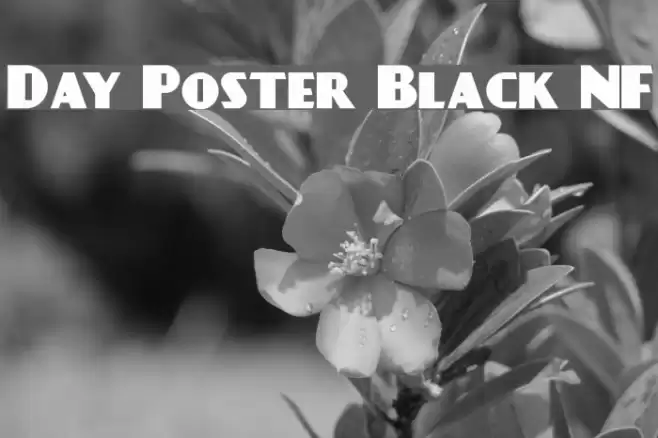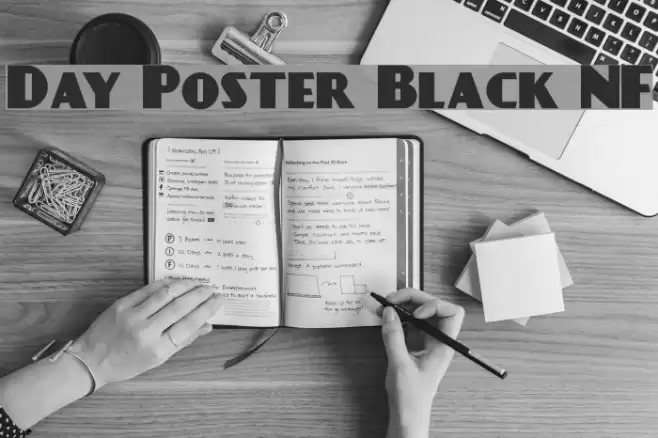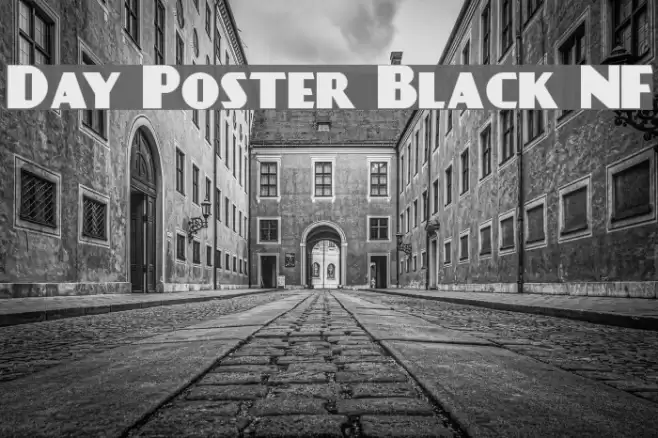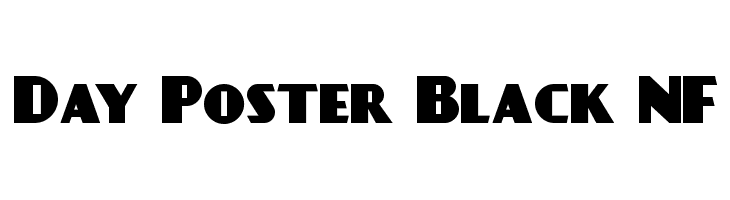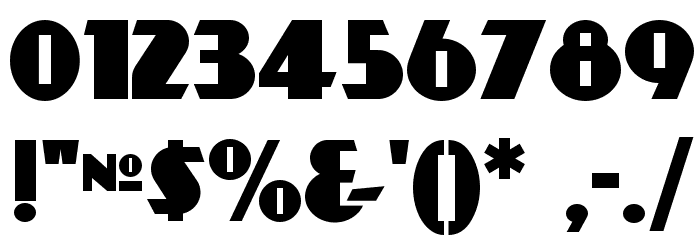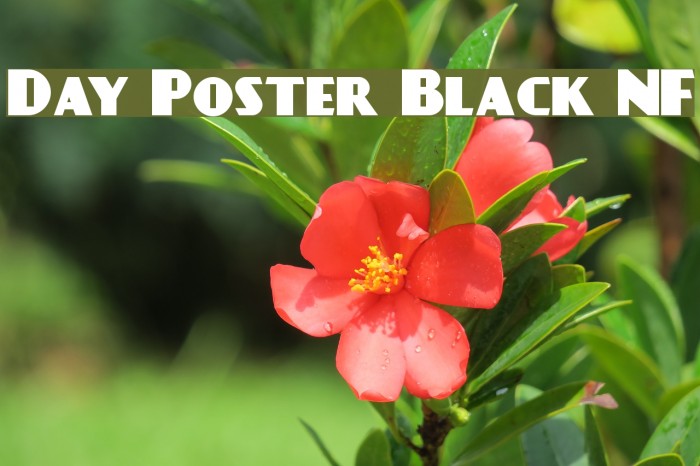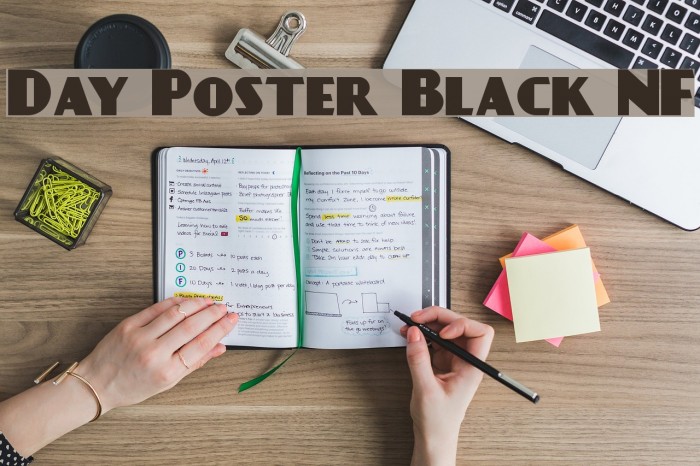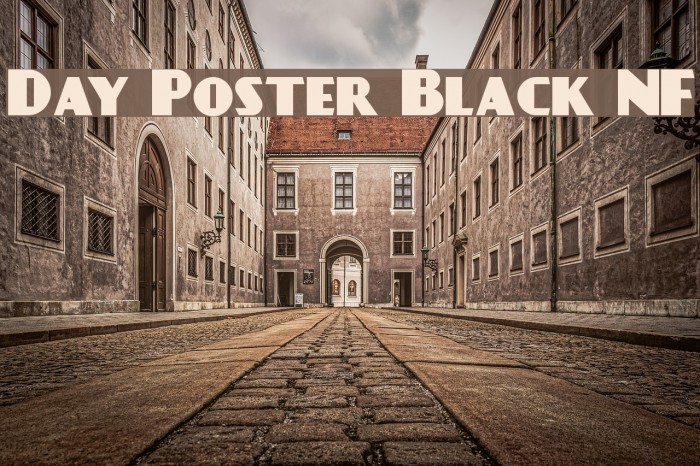
Day Poster Black NF Font
Day Poster Black NF Description
This bold and striking font features a strong geometric design with thick, blocky characters. The uppercase letters are particularly prominent, with sharp angles and a commanding presence. The numbers and special characters maintain this robust style, ensuring consistency across all glyphs. The font's bold weight and high contrast make it ideal for attention-grabbing headlines and impactful designs. Its unique style is reminiscent of vintage poster typography, yet it retains a modern edge that makes it versatile for various applications.
A bold, geometric font with a vintage poster style and modern appeal from Retro fonts.
- Proposed Projects: Ideal for posters, headlines, branding, and any design requiring a bold statement.
- Overall Style: Vintage, Modern